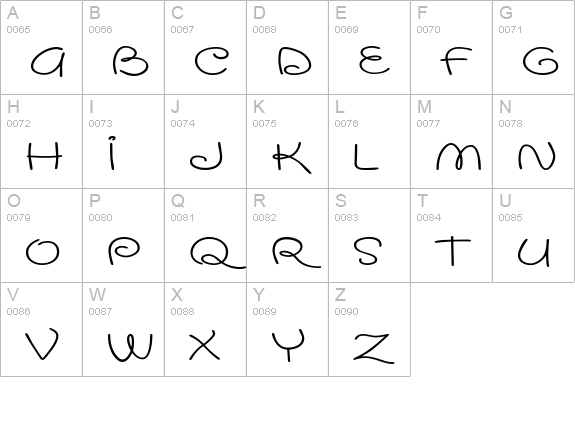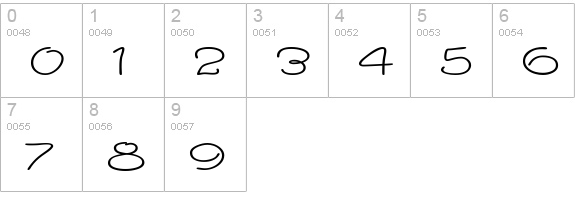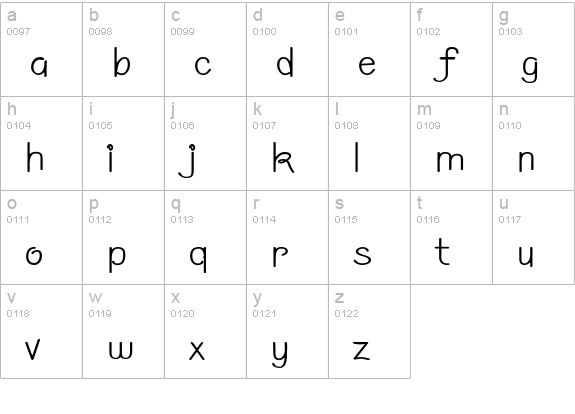
Morning Limerick BTN Exp font is a delightful and playful typeface that exudes charm and whimsy. With its elongated letterforms and curvy details, this font is perfect for adding a touch of fun to any project. Whether you're designing a poster, card, or website, Morning Limerick BTN Exp will bring a sense of lightheartedness to your work. The best part? Morning Limerick BTN Exp font is completely free to download at FontsMarket.com! You can easily add this font to your collection without breaking the bank. So why wait? Get your hands on Morning Limerick BTN Exp font today and let your creativity shine with this cheerful and unique typeface.